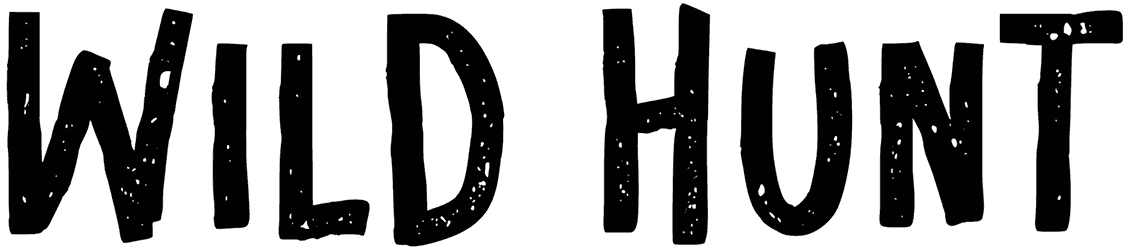
Wild Hunt Font
Wild Hunt is a vintage font that can inspire designers who want to look beyond today and take their work to a higher level. This adventure font does not support lowercase letters.
But it has asymmetrically sized letters that have given it a somewhat scary look. So, in combination with a good background, it can induce a sense of terror in the viewer or play a role in urban and social posters.